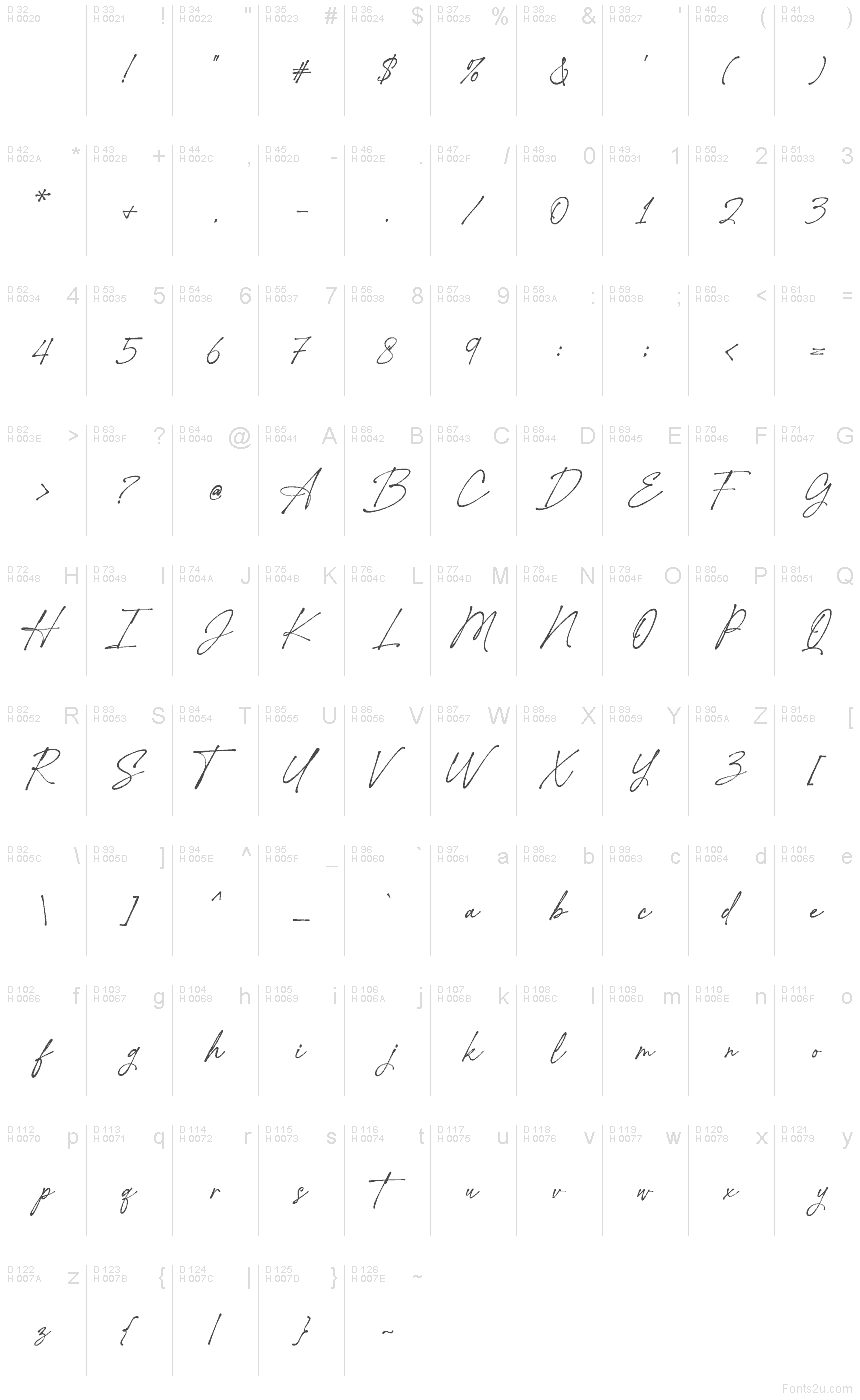
HanifahSalamah
Hanifah Salamah font by Salamahtype.com is a light handwritten font that embodies fluid movement, elegant presence, and expressive flair. It is a modern signature-style font with elongated letters and curves; it can capture attention and evoke feelings in audiences by mimicking an authentic handwriting style that maintains personality and idevity.